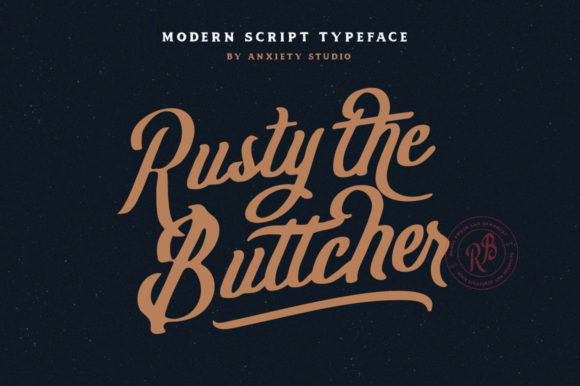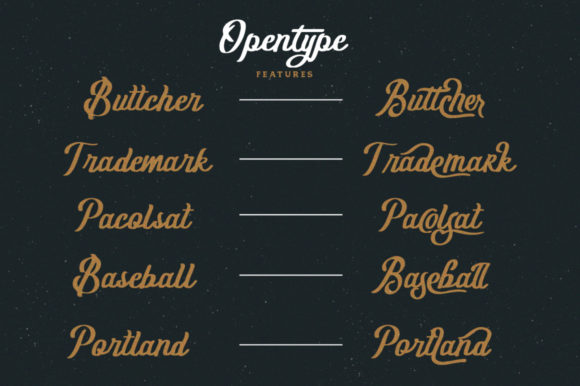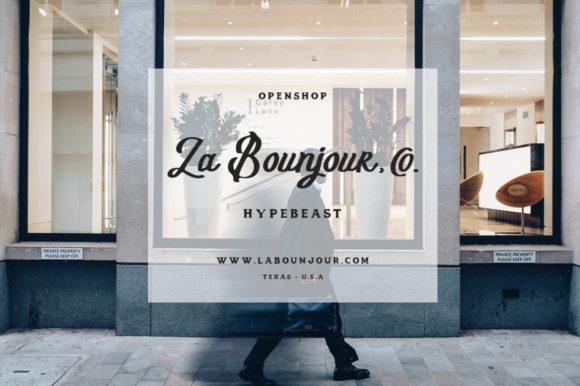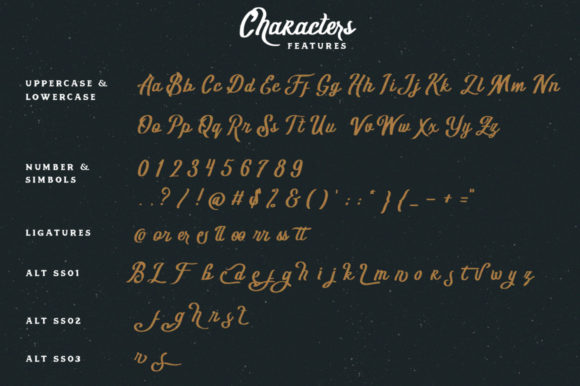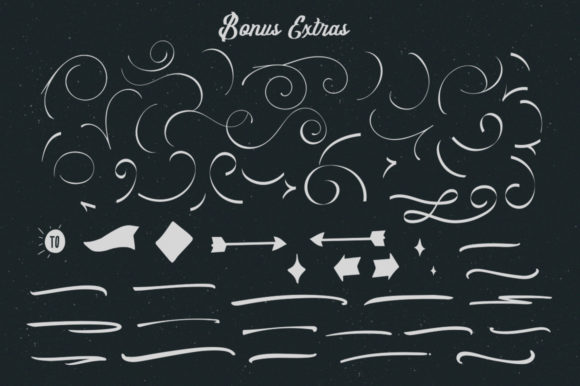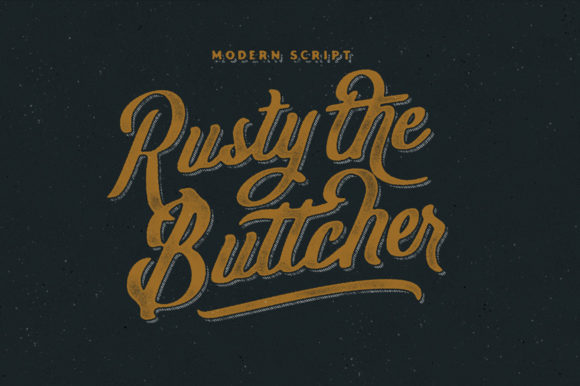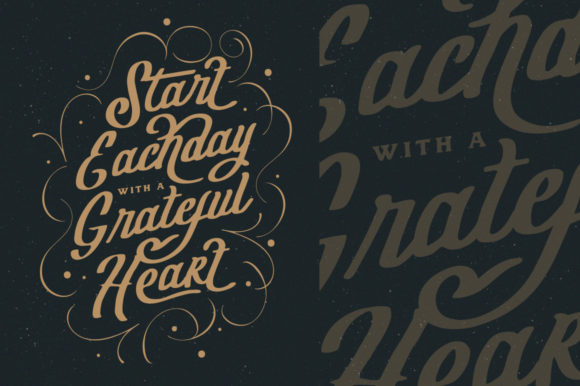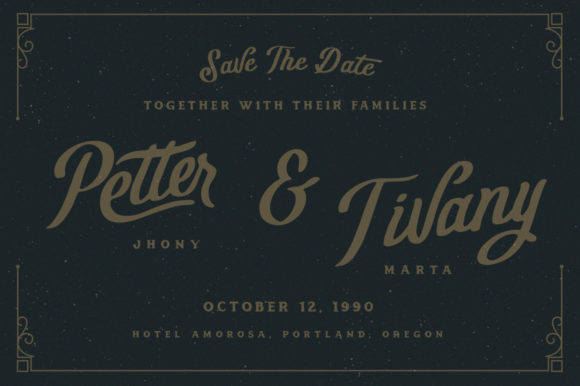
Rusty the Buttcher Font
About Rusty the Buttcher Font
Rusty the Buttcher is a cool and bold script with incredible lettering. Use it to turn any design idea into an eye-catcher!